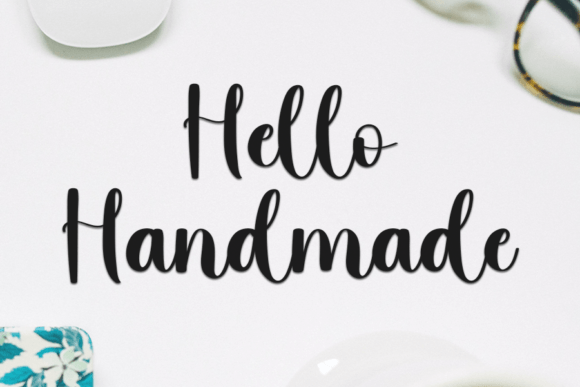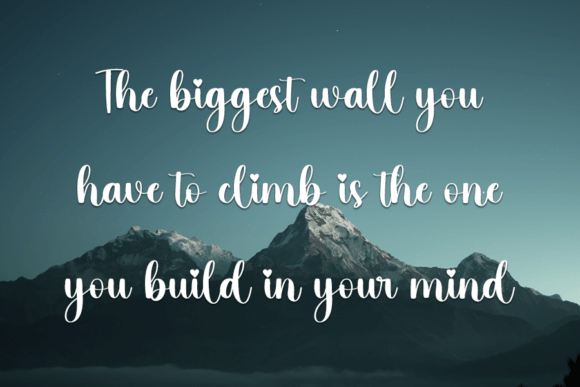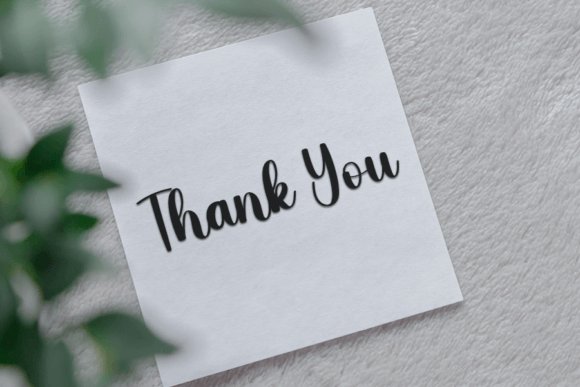
The Quest for the Perfect Font: Discovering Cruise
I still remember the design project that led me to Cruise Font. I was working on a whimsical invitation for a friend’s wedding, and I was determined to make it perfect. The design was almost complete, but something was missing – the right font. I scoured the internet, tried out countless fonts, but none seemed to fit the vibe I was going for. That was until I stumbled upon Cruise. It was love at first sight! ✨
An Honest Review of Cruise Font
So, what makes Cruise so special? Let’s dive into the good stuff and a few quirks I’ve discovered.
- ✨ Delicate and elegant: Cruise has a unique, handwritten feel that’s perfect for adding a touch of sophistication to any design.
- ✅ Versatile: This font can be used for a wide range of projects, from letters and invitations to food product labels and titles.
- 💫 Cool and unique design: Cruise has a distinct personality that will set your designs apart from the crowd.
While Cruise is an amazing font, there are a few things to keep in mind:
- ⚠️ Limited use in body text: Due to its delicate nature, Cruise might not be the best choice for long blocks of body text. It’s better suited for headings, titles, or short paragraphs.
- 🤔 Glyph limitations: Some users have reported that the font might not have as many glyphs as they’d like. However, this hasn’t been a major issue for me.
The Story Behind Cruise Font
Cruise Font was designed with the intention of creating a unique, handwritten font that would add a touch of elegance to any design. The designer aimed to craft a font that was both delicate and sophisticated, perfect for a wide range of creative projects. While the designer’s story is shrouded in mystery, it’s clear that they succeeded in creating a truly special font.
| Font Name | Cruise Font |
| Author | ade studio |
Q: What is Cruise Font?
A: Cruise Font is a delicate, handwritten font designed for creating cool and unique designs.
Q: What can I use Cruise Font for?
A: You can use Cruise Font for a wide range of projects, including letters, invitations, food product labels, titles, and more.
Q: Is Cruise Font suitable for body text?
A: While Cruise Font is beautiful, it’s not ideal for long blocks of body text. It’s better suited for headings, titles, or short paragraphs.